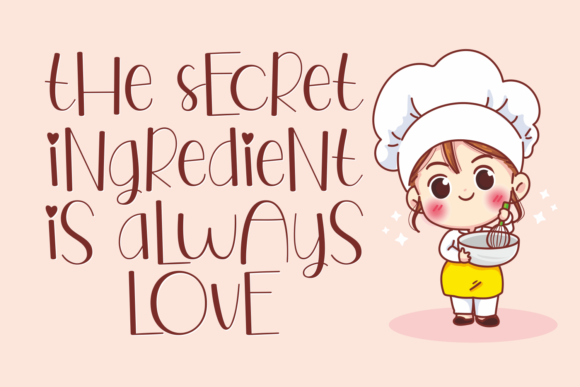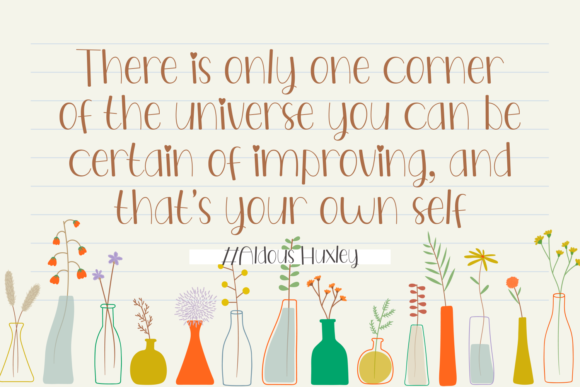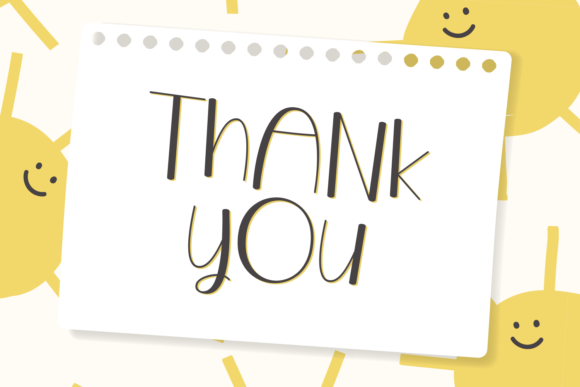
Cute Aeshly Font: The Perfect Choice for Playful and Charming Designs
In the world of typography, fonts play a crucial role in conveying the tone and personality of a design. For designers and crafters looking for a font that embodies playfulness and charm, Cute Aeshly is an excellent choice. This lovely sans serif font is perfect for creating storybook covers, posters, games, social media graphics, children’s designs, and other projects that require authentic and friendly typography.
What Makes Cute Aeshly Font So Special?
Cute Aeshly font is a unique and delightful typeface that is sure to capture the hearts of designers and audiences alike. Its characters are carefully crafted to exude a sense of playfulness and charm, making it an ideal choice for designs that require a friendly and approachable tone. The font’s sans serif design gives it a clean and modern look, while its rounded edges and curves add a touch of warmth and approachability.
Key Features of Cute Aeshly Font
- Playful and charming characters: Each character in Cute Aeshly is designed to bring a sense of joy and friendliness to your designs.
- Sans serif design: The font’s clean and modern sans serif design makes it perfect for a wide range of applications.
- Rounded edges and curves: The font’s rounded edges and curves add a touch of warmth and approachability to your designs.
- Authentic and friendly typography: Cute Aeshly is designed to create a sense of authenticity and friendliness in your designs.
Use Cases for Cute Aeshly Font
Cute Aeshly font is a versatile typeface that can be used in a wide range of design applications. Here are some of the most popular use cases for this lovely font:
- Storybook covers: Cute Aeshly is perfect for creating eye-catching and charming storybook covers that will appeal to children and adults alike.
- Posters: The font’s playful and charming characters make it an excellent choice for creating posters that require a friendly and approachable tone.
- Games: Cute Aeshly can add a touch of fun and playfulness to game designs, making it perfect for games that appeal to children or families.
- Social media graphics: The font’s clean and modern design makes it perfect for creating social media graphics that require a friendly and approachable tone.
- Children’s designs: Cute Aeshly is a natural fit for children’s designs, including children’s books, educational materials, and toys.
Why Choose Cute Aeshly Font?
With so many fonts available, why choose Cute Aeshly for your design projects? Here are just a few reasons why this lovely font stands out:
- Unique and charming characters: Cute Aeshly offers a unique and charming set of characters that will add a touch of personality to your designs.
- Versatile and adaptable: The font’s clean and modern design makes it perfect for a wide range of applications and design styles.
- Easy to read: Cute Aeshly is designed to be easy to read, making it perfect for designs that require a clear and legible font.
- High-quality design: The font is carefully crafted to ensure a high-quality design that will enhance your projects.
In conclusion, Cute Aeshly font is a lovely sans serif font that is perfect for designers and crafters looking for a playful and charming typeface. With its unique and charming characters, clean and modern design, and versatile adaptability, Cute Aeshly is an excellent choice for a wide range of design applications. Whether you’re creating storybook covers, posters, games, social media graphics, or children’s designs, Cute Aeshly is sure to bring a touch of joy and friendliness to your projects.